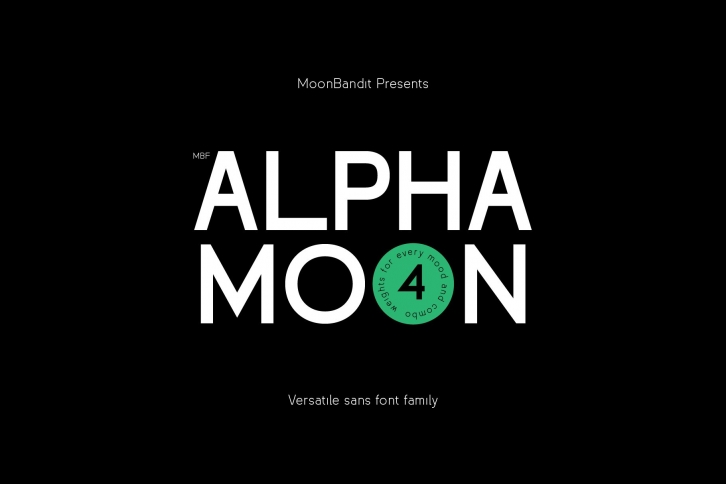
MBF Alpha Moon is a trendy and unique font with an authentic style. It was designed by MoonBandit and it's a great choice for creative people who need such a font. It was released on June 20, 2021 and the file size is 11.97 MB. MBF Alpha Moon will add an organic vibe to any design idea!